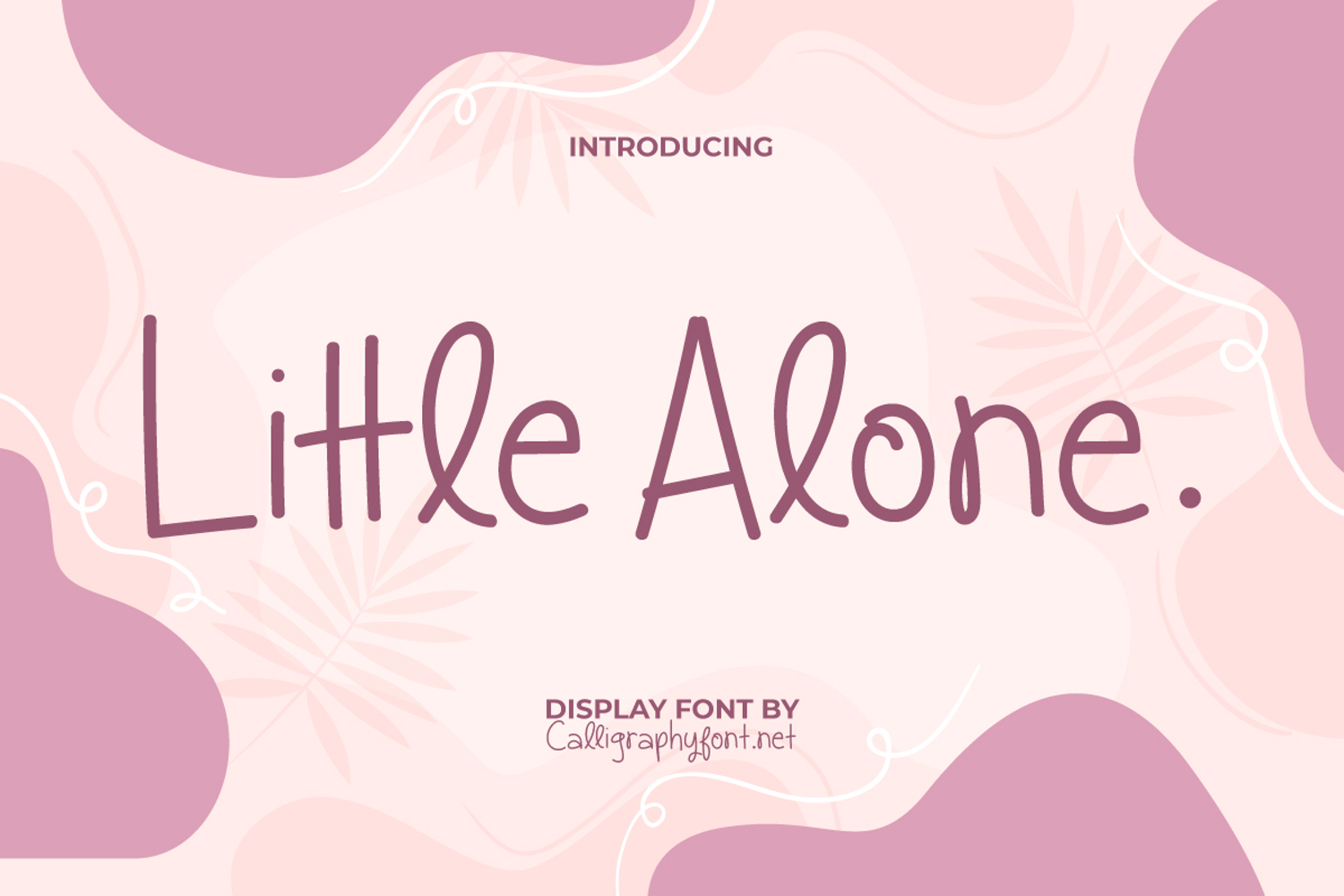
Little Alone
Little Alone Font is a joyful modern display font that comes with fresh and cheerful letters. The letter’s minimalist, sleek and smooth shape makes it ideal for blogs, branding, brochure, cover, editorial design, flyer, greeting cards, header, headline, invitations, mockup, packaging, screen print, signs, stationery, template design, title, website, and any project that demands a sophisticated touch.